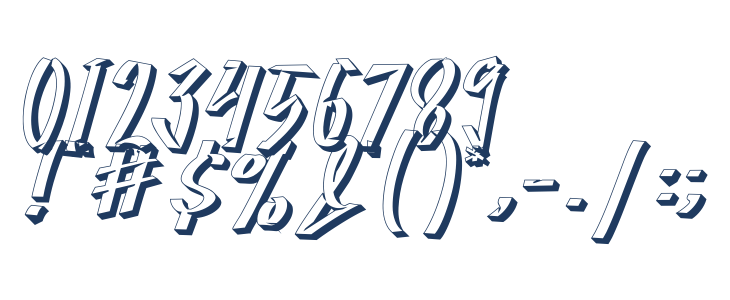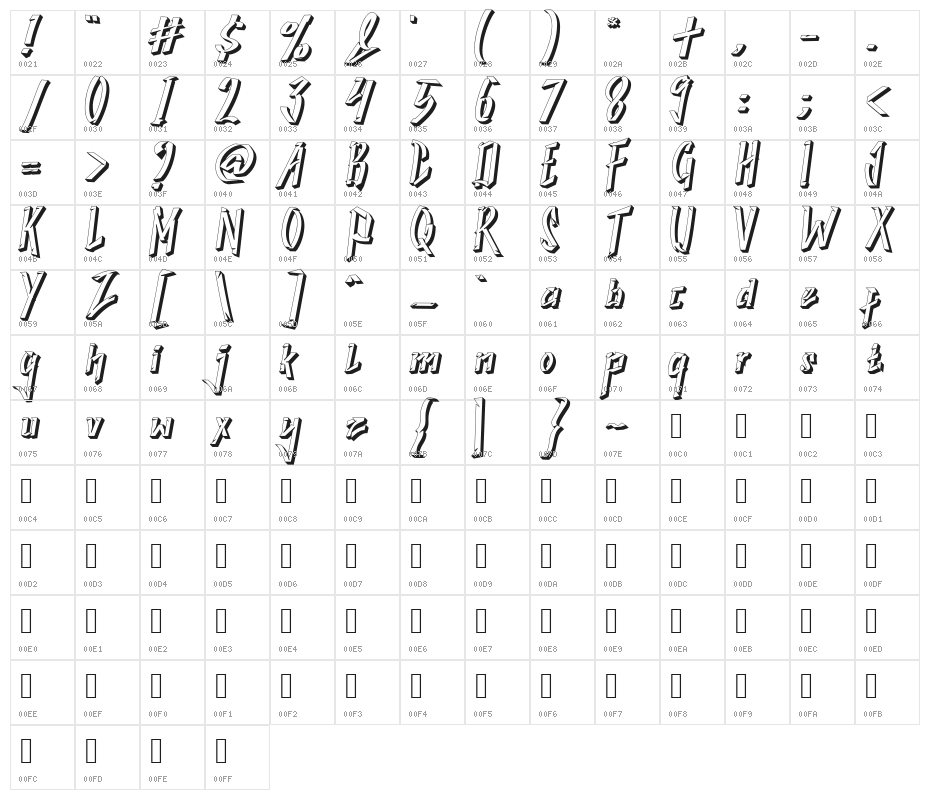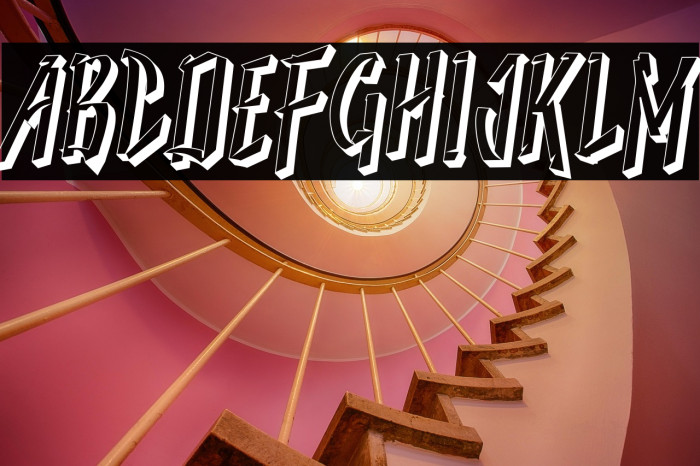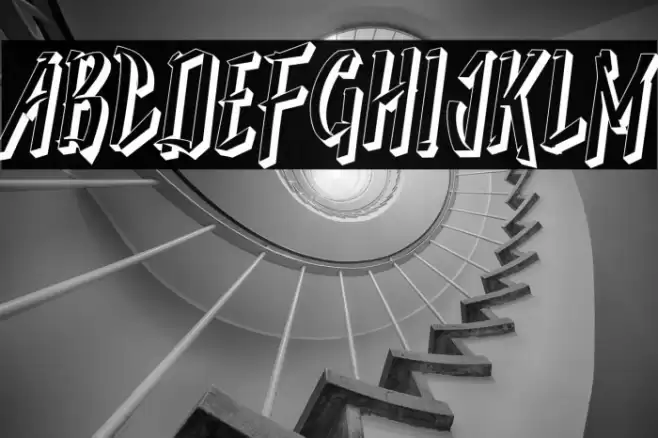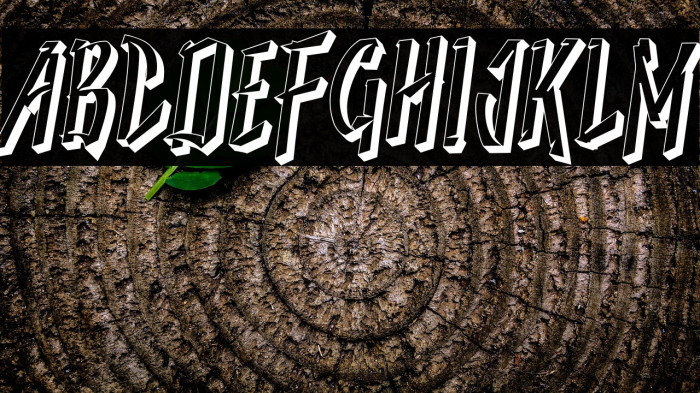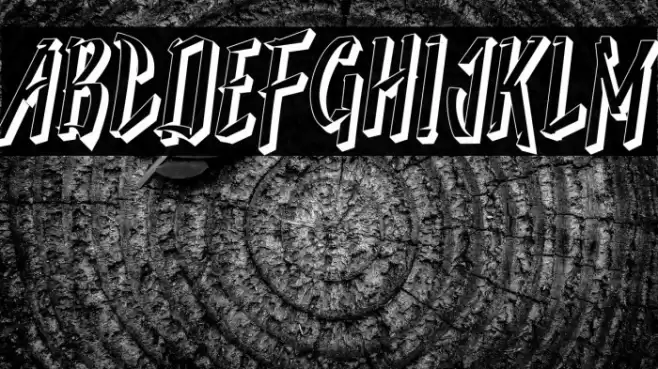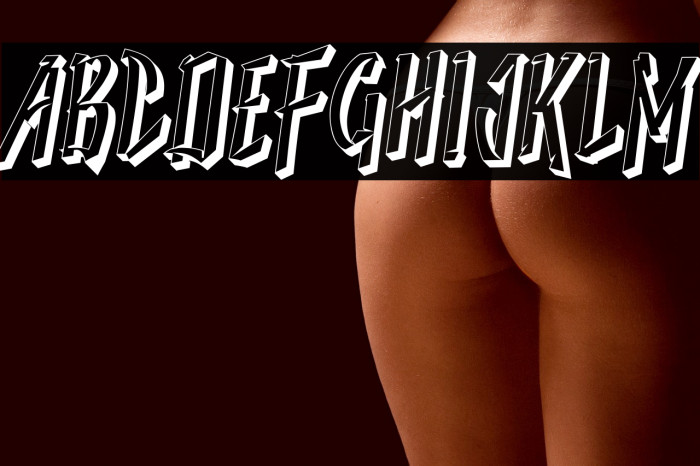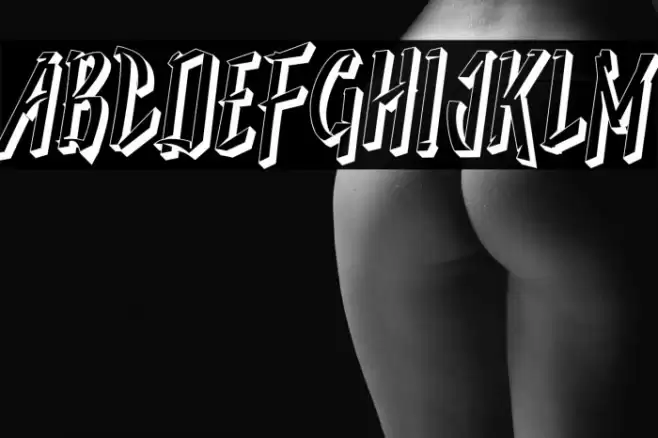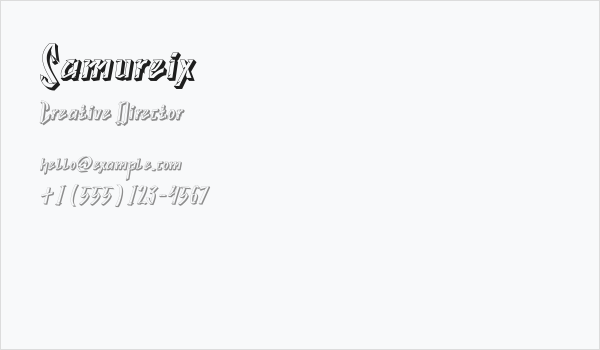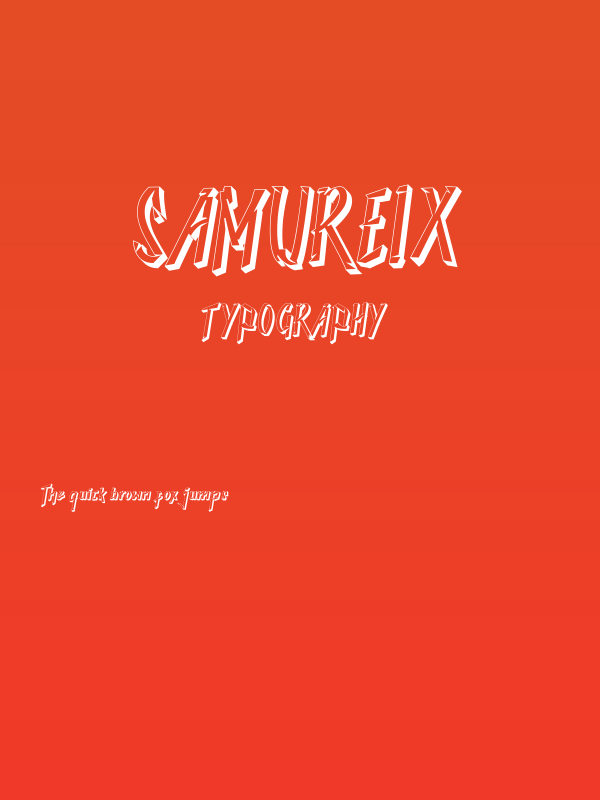
Samureix Font
Samureix Description
This font features a bold and dynamic 3D effect, with each character appearing to leap off the page. The letters are sharply angled, giving them a sense of movement and energy. The thick strokes are complemented by a shadow effect that enhances the three-dimensional illusion. This style is reminiscent of graffiti art, with a modern twist that makes it suitable for eye-catching designs. The uppercase and lowercase letters maintain a consistent style, while the numerals and special characters are equally bold and impactful.
| Proposed Projects | Ideal for posters, album covers, streetwear branding, and any project needing a bold, urban aesthetic. |